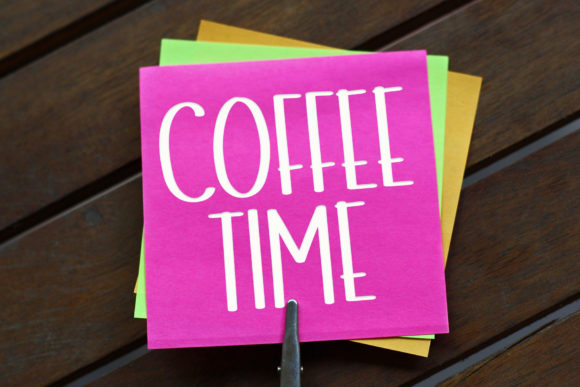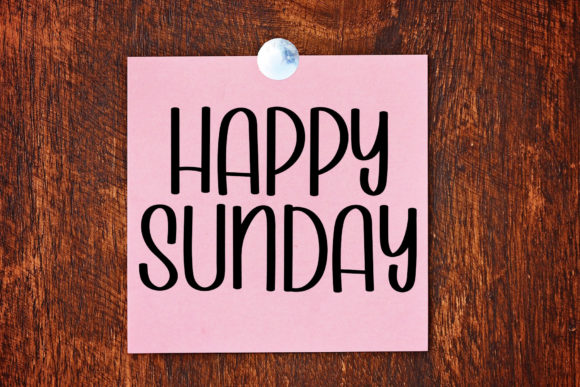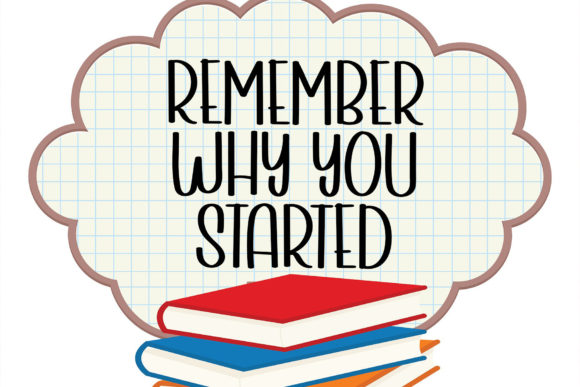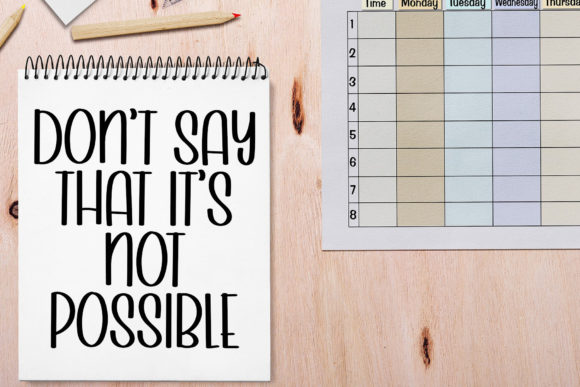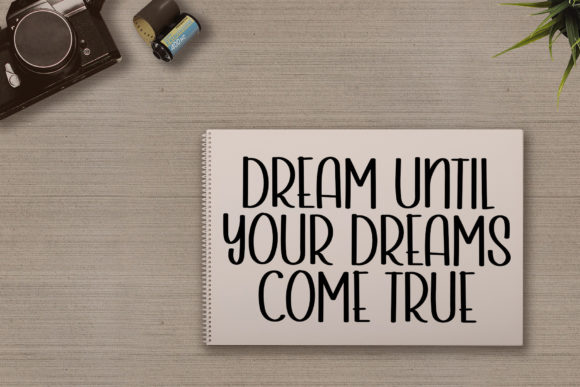
Milkman Font
About Milkman Font
Milkman is a fun handwritten font. No matter the topic, this font will be an incredibly asset to your fonts’ library, as it has the potential to elevate any creation.